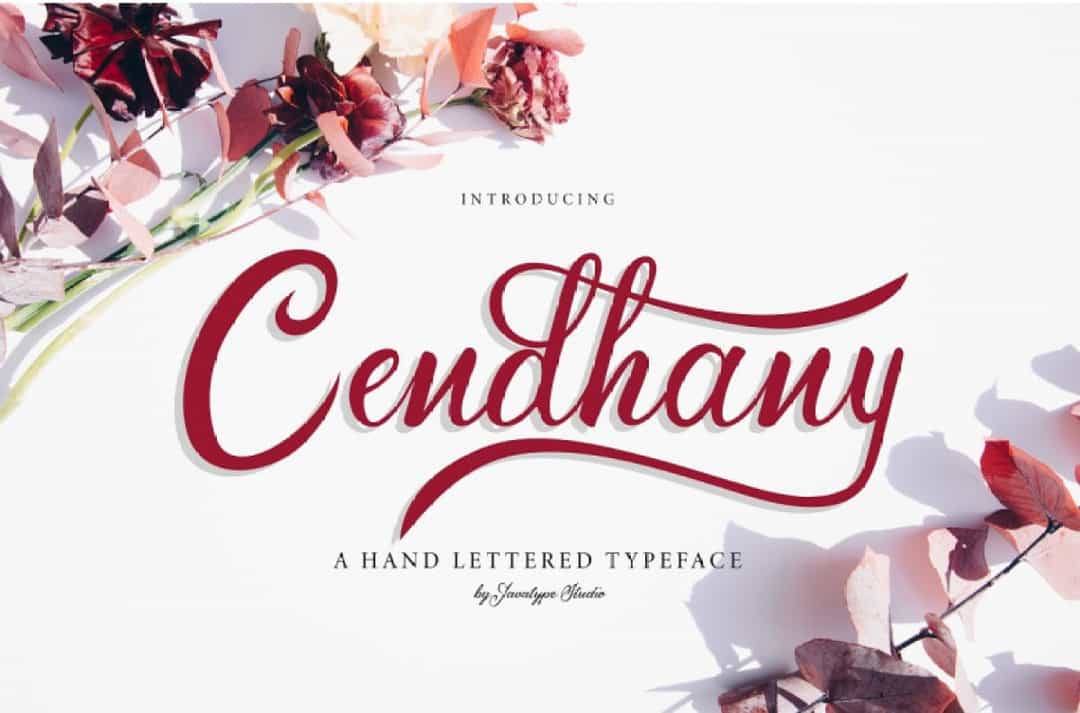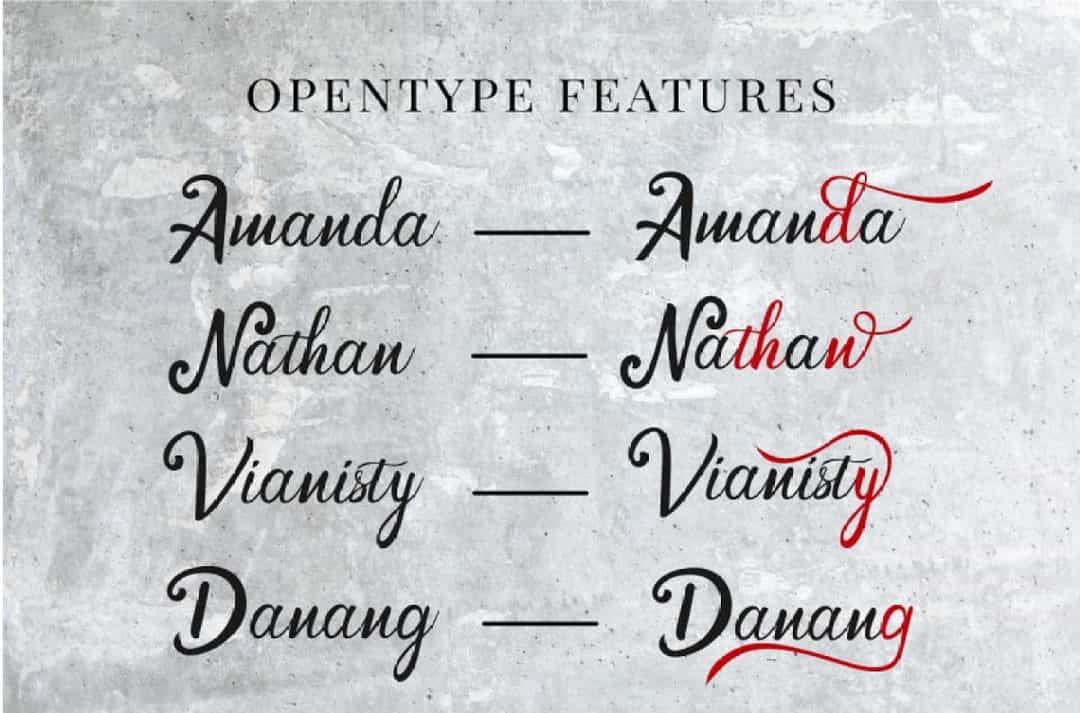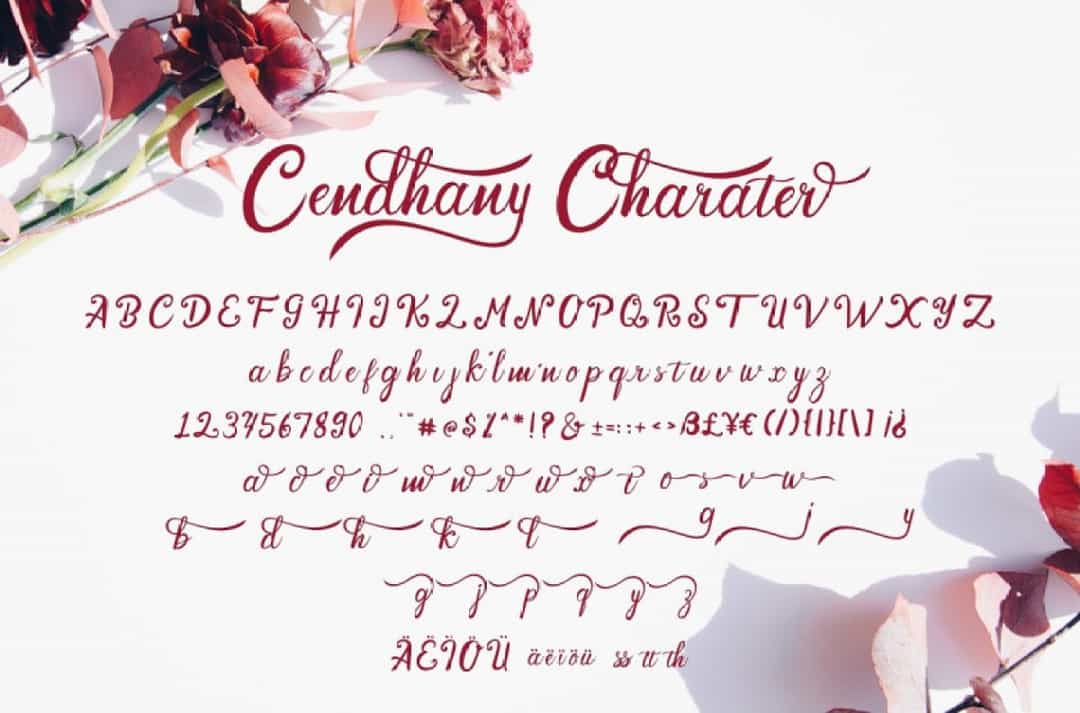
Cendhany is a sophisticated calligraphy font with a touch of the modern – a nice marriage of a copper decorative script and today’s aesthetics. The Cendhany font is generated by the brush pen writing methods which generate quality fonts. Whether you require the fonts for purposes of headlines, logotypes, apparel, invitations, packaging, wedding branding, advertisements and many more,